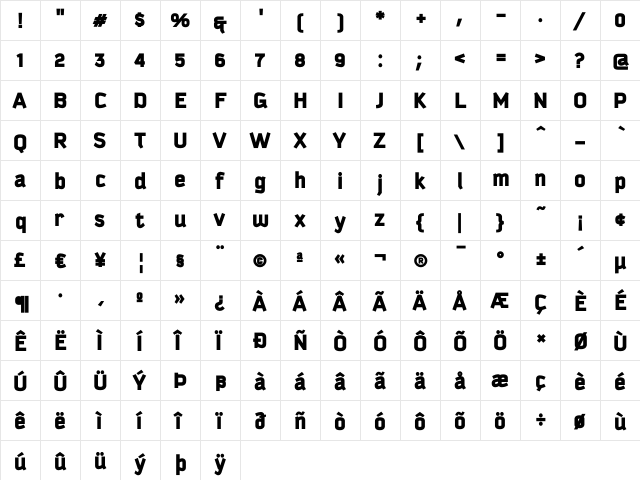
KautivaBlackProC Regular
| Foundry | Alejandro Paul y Alfredo Graziani |
| Designer | Alejandro Paul y Alfredo Graziani |
Design Context for KautivaBlackProC Typeface
KautivaBlackProC takes a measured approach to typography — its balanced proportions and neutral character make it a reliable workhorse for both digital and print work.